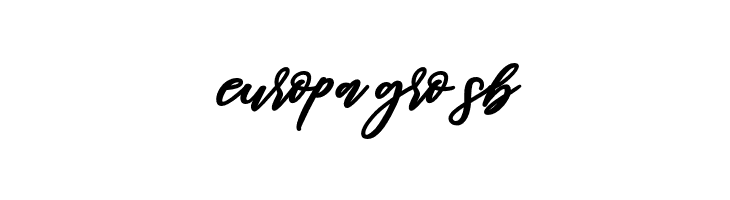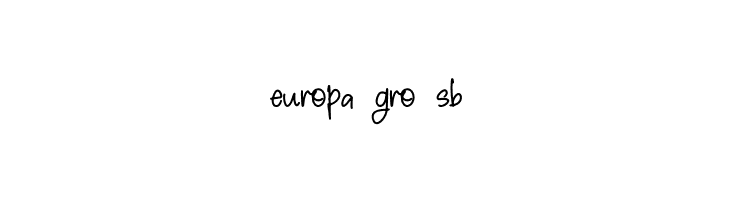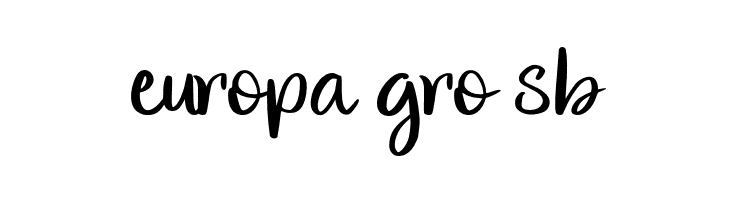
A playful, rounded font with smooth curves and consistent stroke width.
A playful, rounded font with a casual, handwritten style.
A bold, distressed font with a rugged, edgy appearance.
Playful, rounded sans-serif with a hand-drawn appearance.
A playful and elegant script font with flowing, cursive letterforms.
A lively and dynamic script font with fluid, connected letterforms and moderate stroke contrast.
A pixelated, grid-based font with a retro digital aesthetic.
A bold, dynamic script font with high contrast and dramatic flair.
A bold serif font with high contrast and a classic yet modern style.
A bold, angular font with a dynamic and geometric style.
An elegant, flowing script font with a handwritten style.
A font featuring car silhouettes for letters, paired with classic serif numbers and symbols.
A lively, handwritten font with bold, fluid strokes and a modern calligraphic style.
A bold, brush-style font with an energetic and handcrafted appearance.
A stylish, handwritten font with elongated, flowing characters and artistic flair.
An elegant, flowing script font with graceful curves and a sophisticated flair.
A display font featuring spaceship silhouettes as glyphs.
A modern, cursive font with elegant, flowing letters and moderate contrast.
A modern cursive font with a flowing, handwritten style.
A lively and expressive handwritten font with fluid, dynamic strokes.
A highly decorative and artistic font with unique, intricate designs for each character.
A decorative font with letters in themed circles, featuring high contrast and creative designs.
A bold, hand-drawn font with a playful, textured style.
A playful, hand-drawn font with bold, rounded strokes.
A playful, bubble-like font with rounded, bold characters.
A bold, ornate blackletter font with intricate details and a gothic style.
An ornate, curly font with bold strokes and intricate swirls.
A whimsical and curly font with playful, flowing strokes.
An ornate, curly font with inverse contrast and whimsical design.
An elegant, cursive font with flowing, connected letters and a sophisticated style.
A lively, cursive font with smooth, flowing strokes and elegant connections.
A playful and whimsical handwritten font with dynamic letterforms.
An elegant script font with flowing, connected letters and ornate uppercase characters.